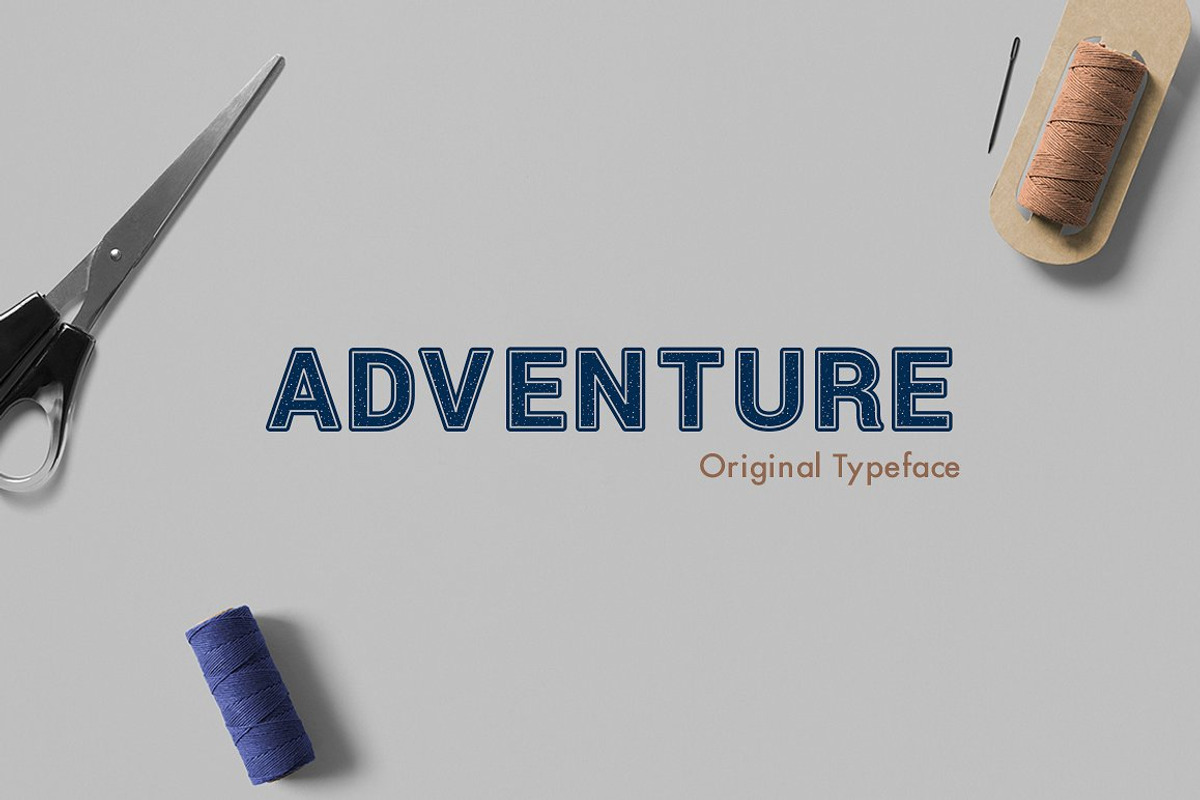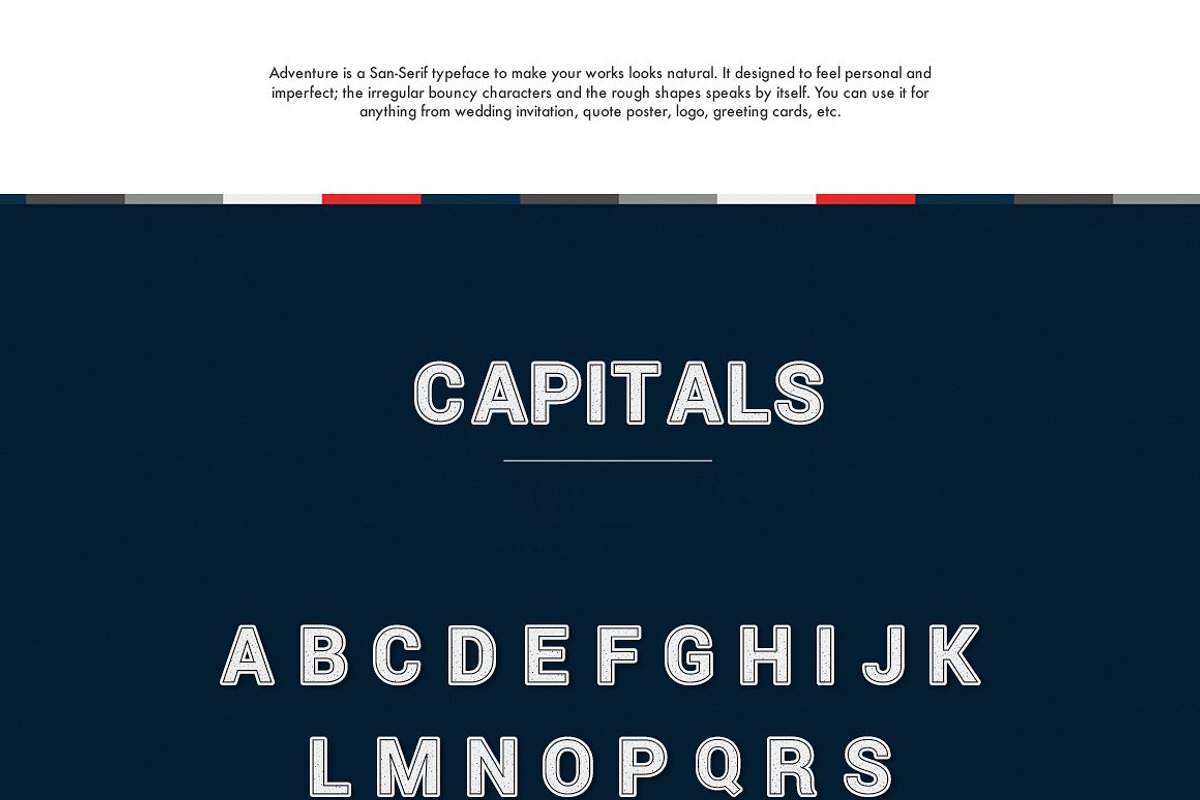
Adventure Typeface Fonts
Introducing new typeface called Adventure which is perfect for Logo, Logo type, quotes, apparel design, invitations, flyer, poster, greeting cards, product packaging, headers, printed quotes, cover album, etc.
Why Adventure Typeface Fonts is worth a look
Adventure Typeface Fonts by DuoFankaar fits naturally into Branding, posters, packaging, typography.